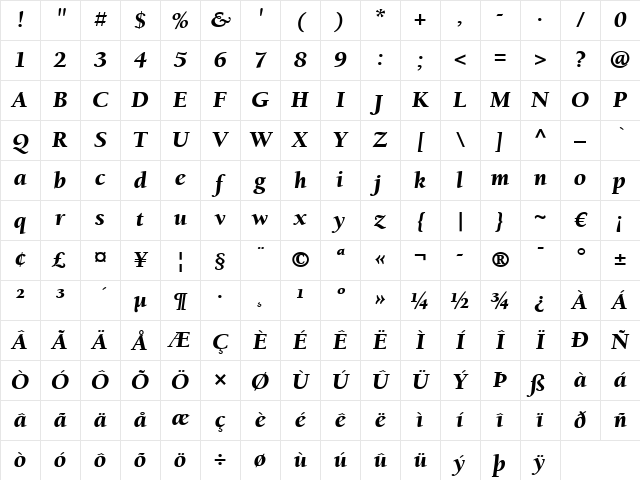
Complete Berkeley LT Black Italic glyph index. Displaying only characters natively supported by Berkeley LT Black Italic font.
Berkeley LT Black is a composed and adaptable typeface that performs quietly and consistently across a wide range of design contexts. The slanted form adds forward momentum and visual energy. Its slender proportions lend an understated elegance to any composition.
Pro Tip: Use Berkeley LT Black for emphasis, pull quotes, and subheadings where its slanted energy can add rhythm to the layout.